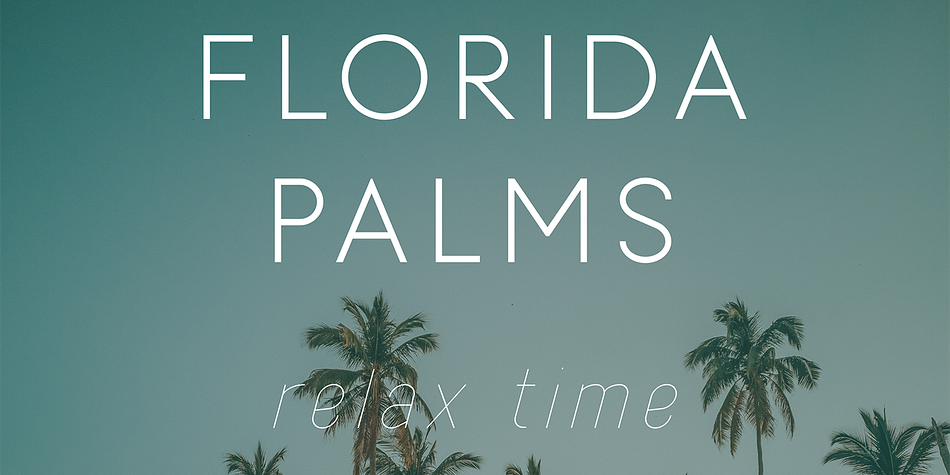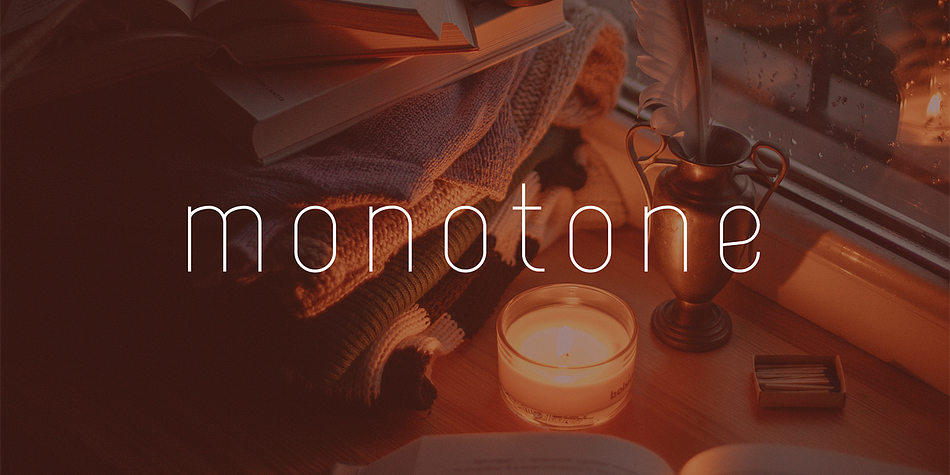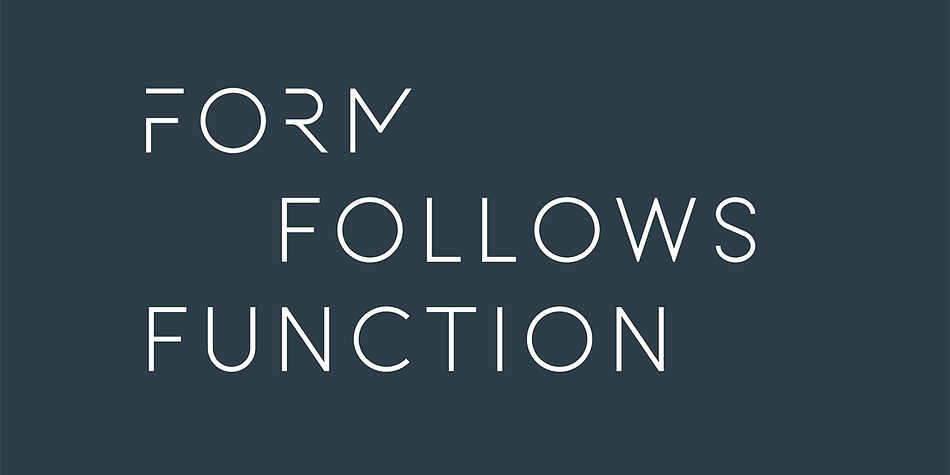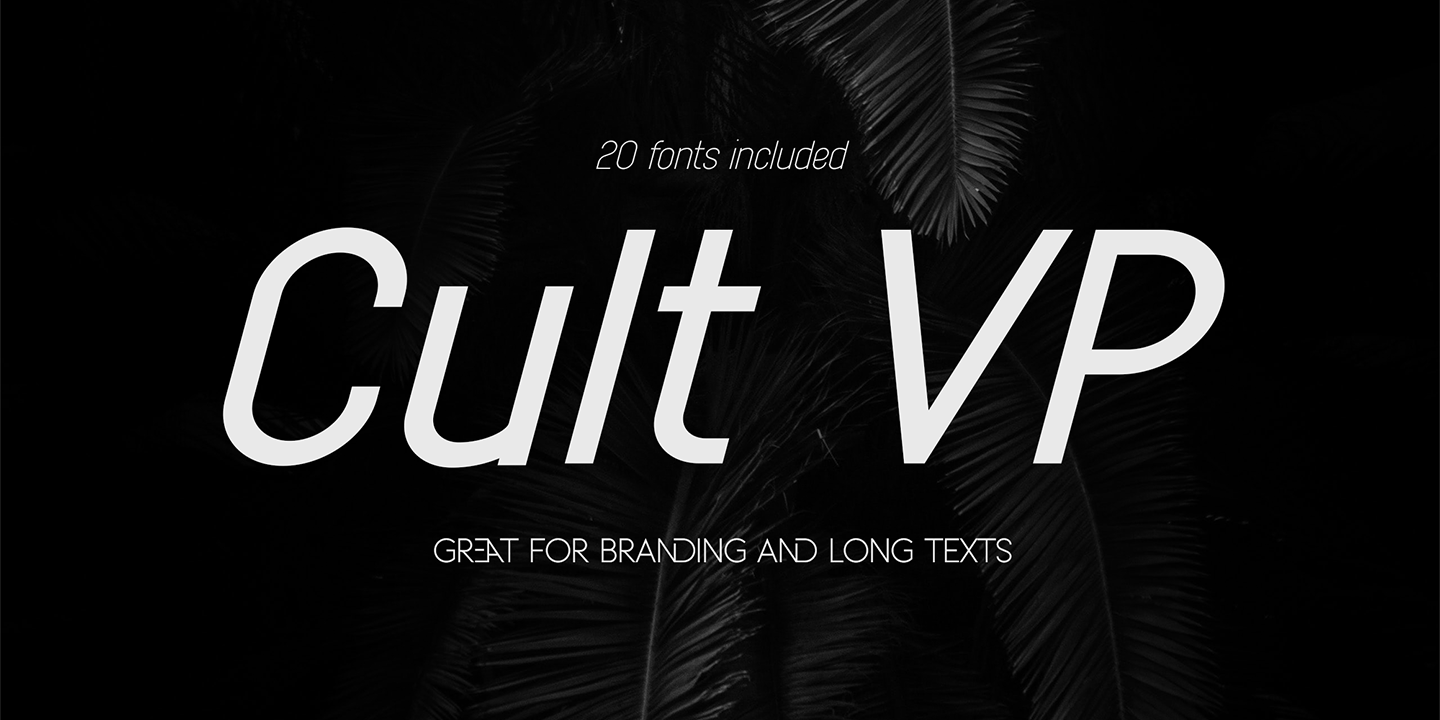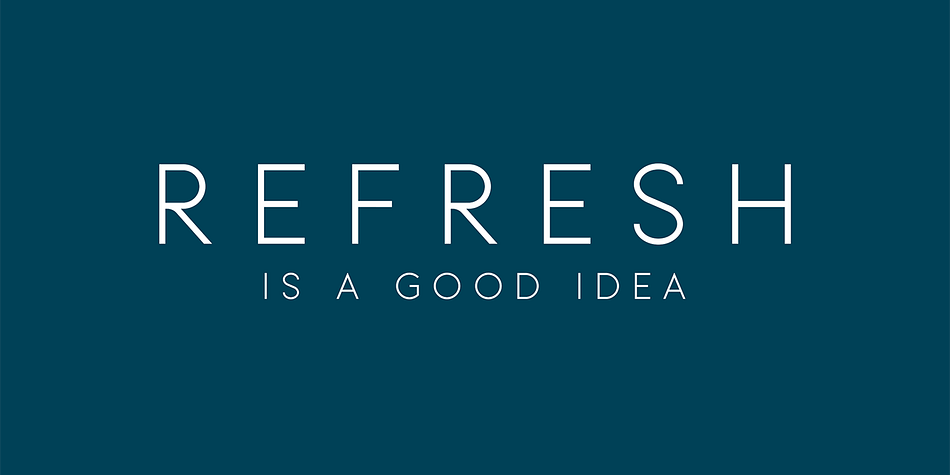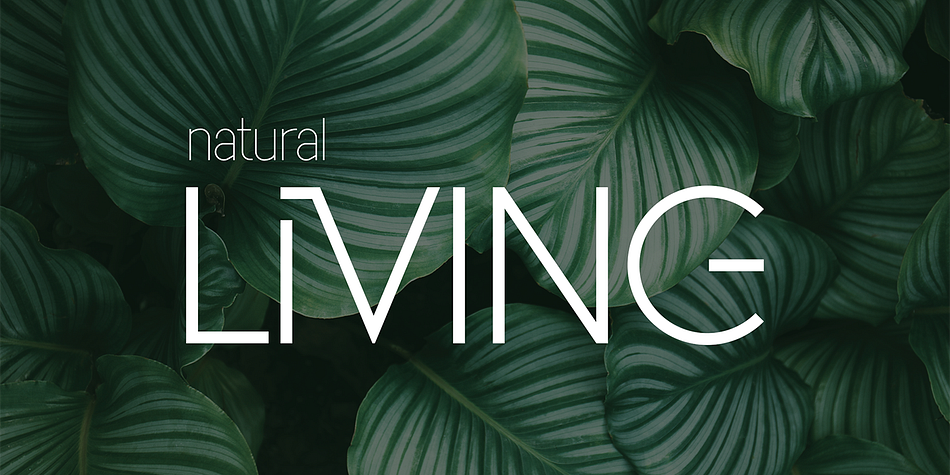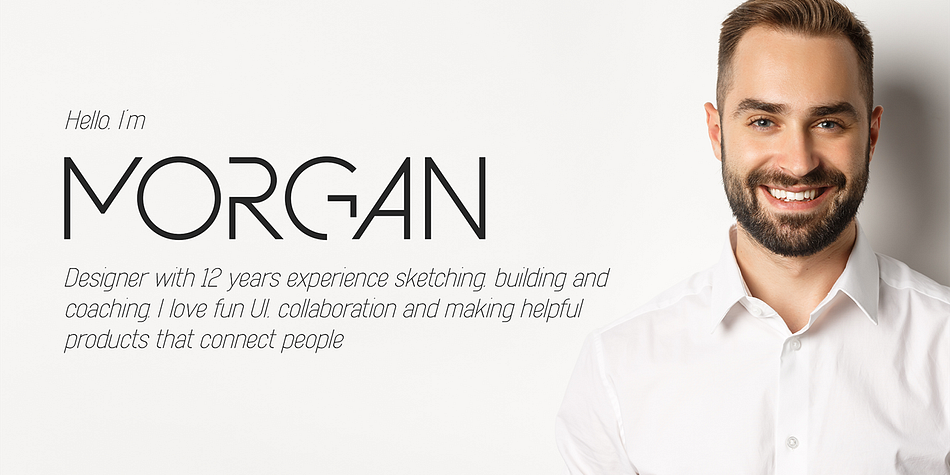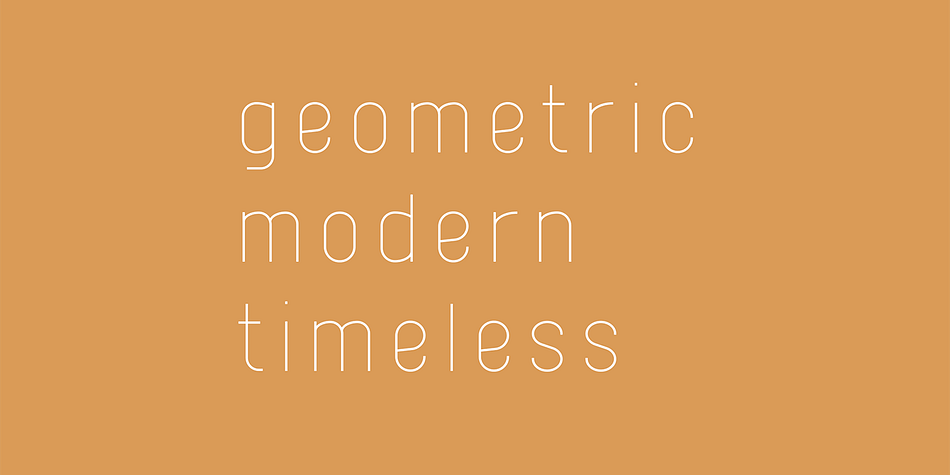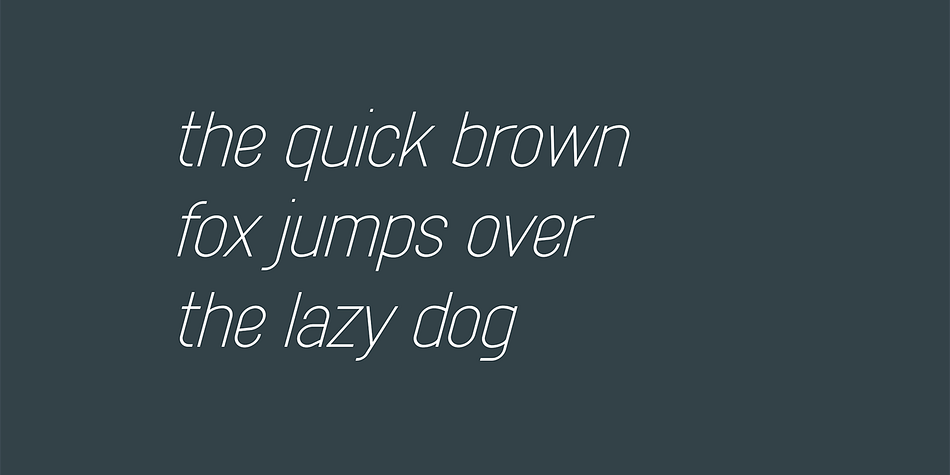
Cult VP
Cult VP is a sans serif font family. This typeface has twenty styles and was published by VPcreativeshop.
Introducing Cult VP typeface - 20 fonts
Unlock the creative potential with Cult VP typeface - a modern and timeless font loaded with 20 styles that will surely elevate your writing. Enhance your visuals further by utilizing 87 languages support and ligature glyphs for an inspirational typography experience like no other!
FEATURES
Uppercase, lowercase, numeral, punctuation & Symbol
ligature glyphs
Branding font - regular and italic
9 sans serif weights - regular and italics